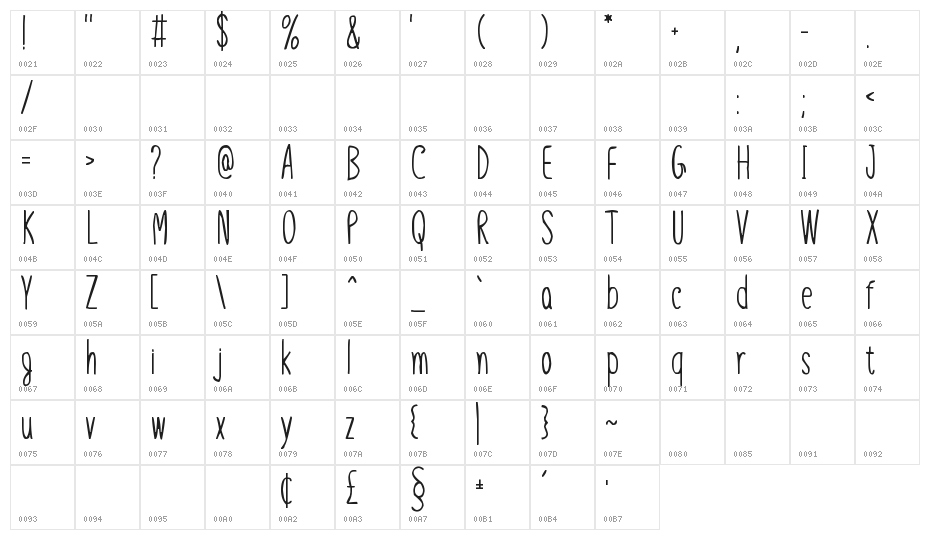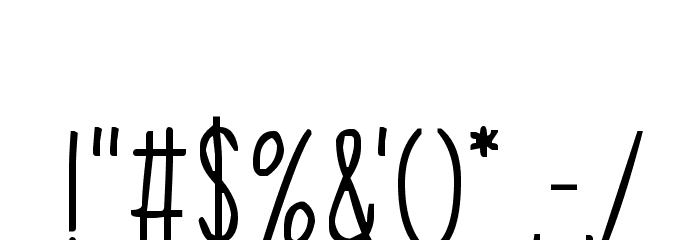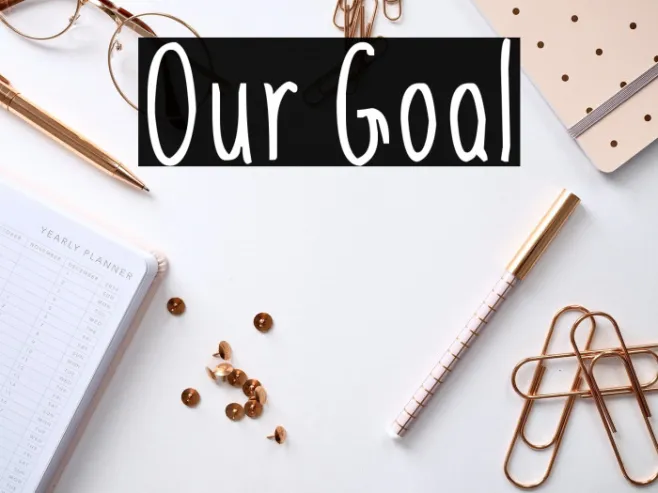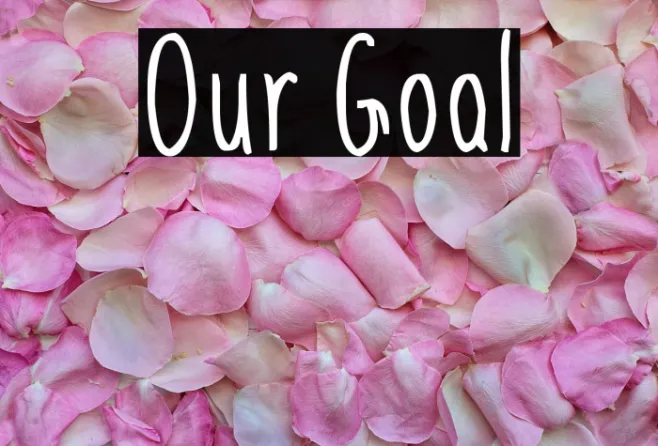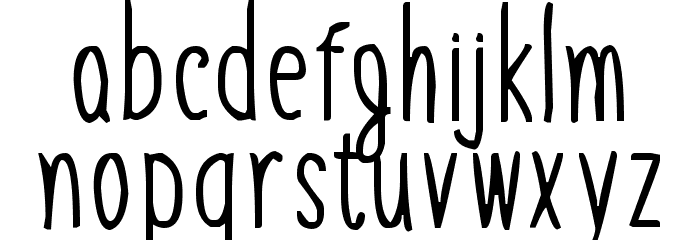
Our Goal Font
Our Goal Description
This font features a playful and informal handwritten style, characterized by its tall, narrow letters with a slight slant. The strokes are consistent in thickness, giving it a uniform appearance. The uppercase letters are bold and prominent, while the lowercase letters maintain a similar height, creating a cohesive look. The font includes a full set of numerals and a variety of special characters, making it versatile for different uses. Its whimsical nature makes it ideal for projects that require a personal touch or a casual vibe.
| Proposed Projects | Ideal for greeting cards, children's books, casual branding, and social media graphics. |